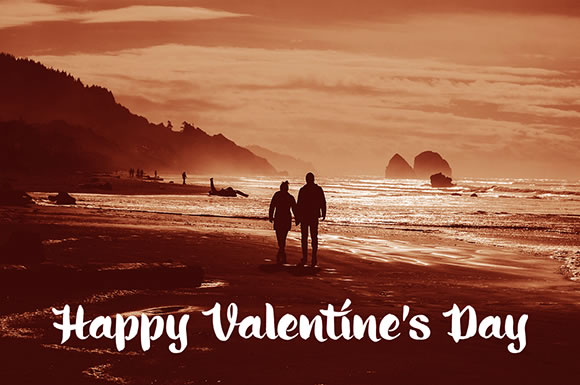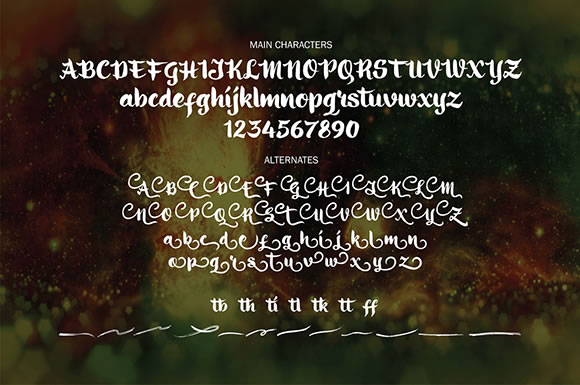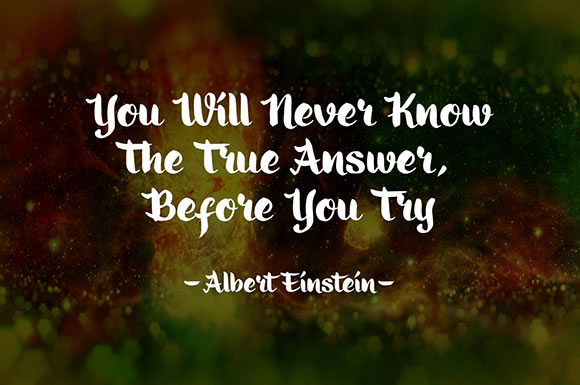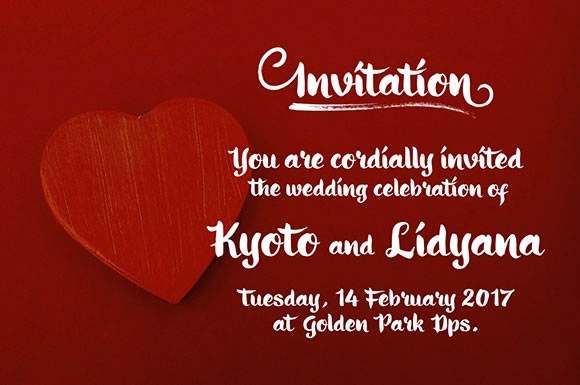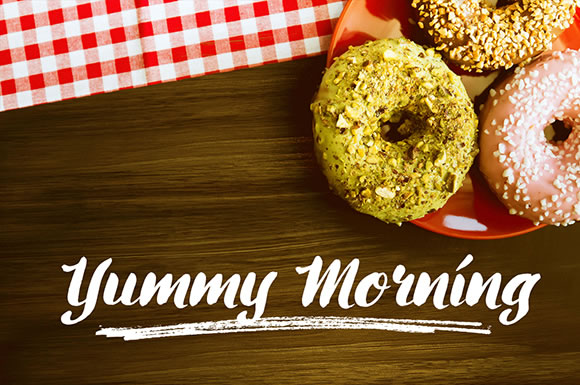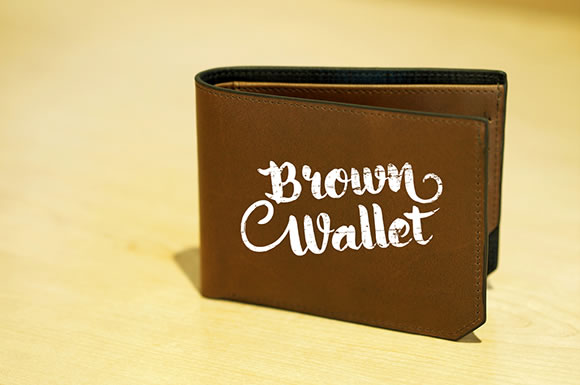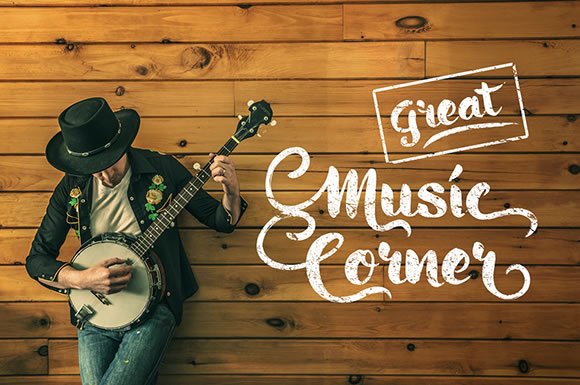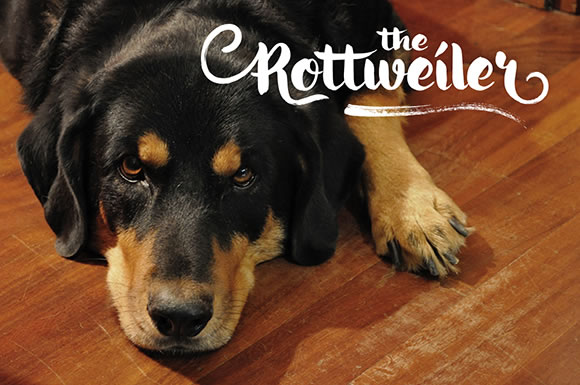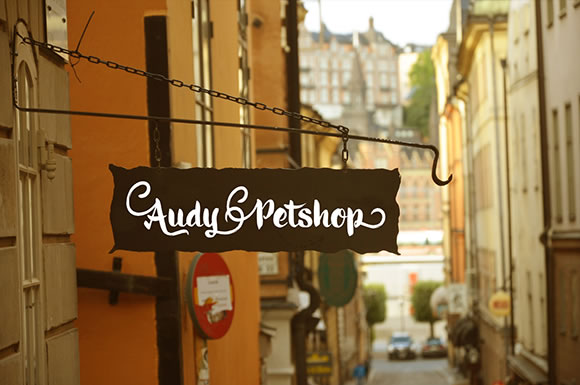
Ringotube Font
About Ringotube Font
Ringotube is a handwritten script font.
This brush typeface has a very natural handwritten look & feel. Ringotube looks great on invites, packaging, cards and other designs that require a personal yet professional touch.